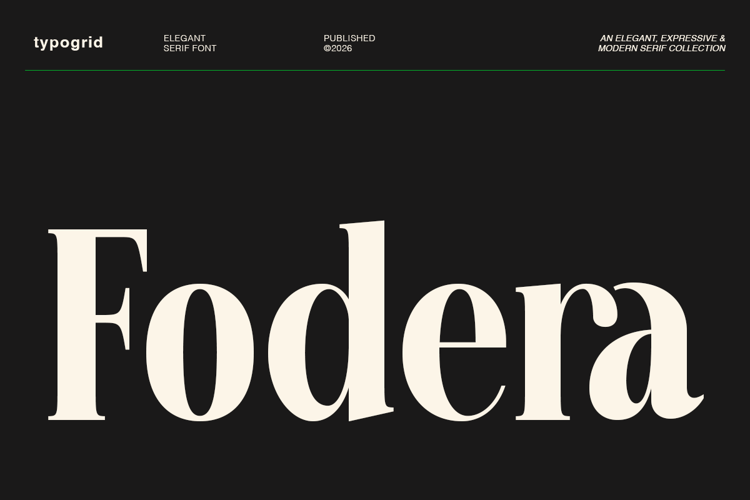
TG Fodera Font
TG Fodera DEMO is a sophisticated high-contrast serif with sculptural letterforms and sharp, refined serifs. Its dramatic thick-thin stroke contrast and timeless elegance give fashion editorials, luxury branding, and magazine headlines a polished, editorial boldness. The clean, modern-classic character shines in logos, lookbooks, and premium packaging.